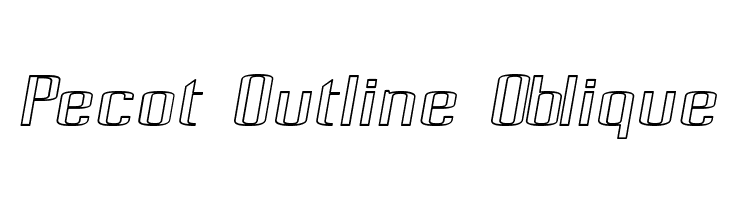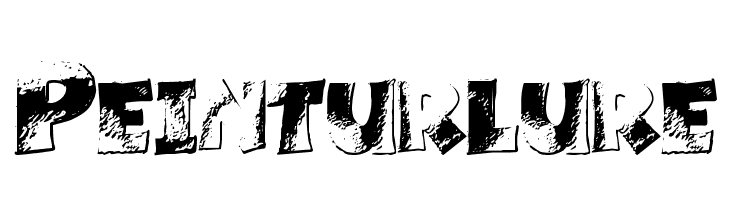
( Fonts by Graham Meade - GemFonts )
A modern, oblique outline font with geometric structure.
( Fonts by Graham Meade - GemFonts )
A bold, playful font with a 3D shadow effect and rounded, cartoonish characters.
A bold, outlined serif font with high contrast and classic elegance.
( Fonts by Jacob Fisher - www.pizzadude.dk )
A bold, playful font with chunky outlines and a cartoonish style.
( Fonts by Rich Gast - www.greywolfwebworks.com OFF SITE )
A bold, decorative font with a modern-vintage blend and outlined characters.
( Fonts by Rich Gast - www.greywolfwebworks.com OFF SITE )
A bold, decorative font with a star pattern and thick outlines.
( Fonts by Nick Curtis - www.nicksfonts.com )
A bold, geometric font with Art Deco influences and dynamic character shapes.